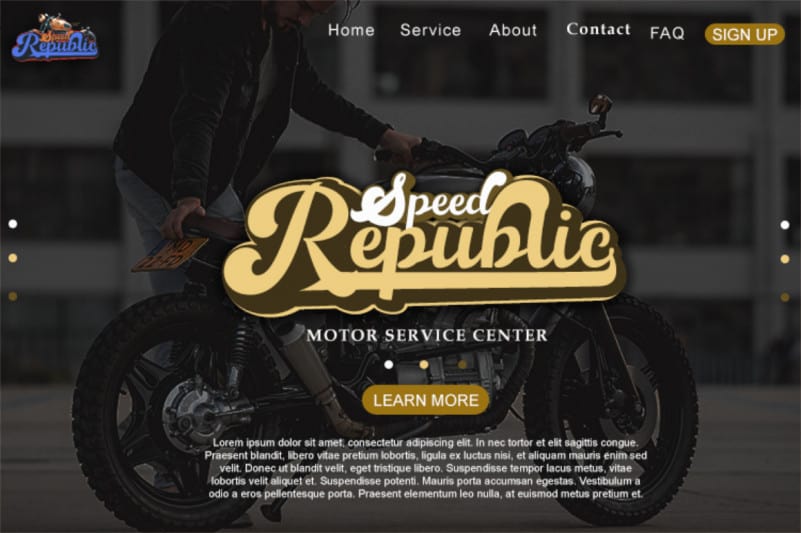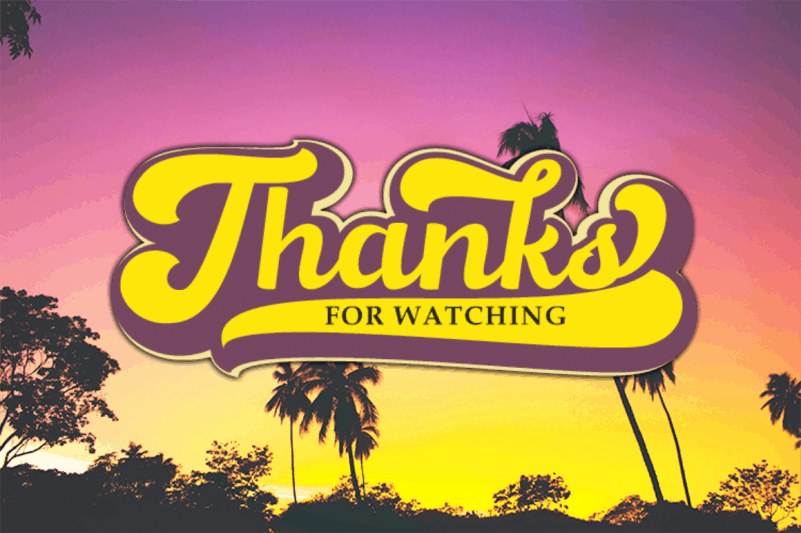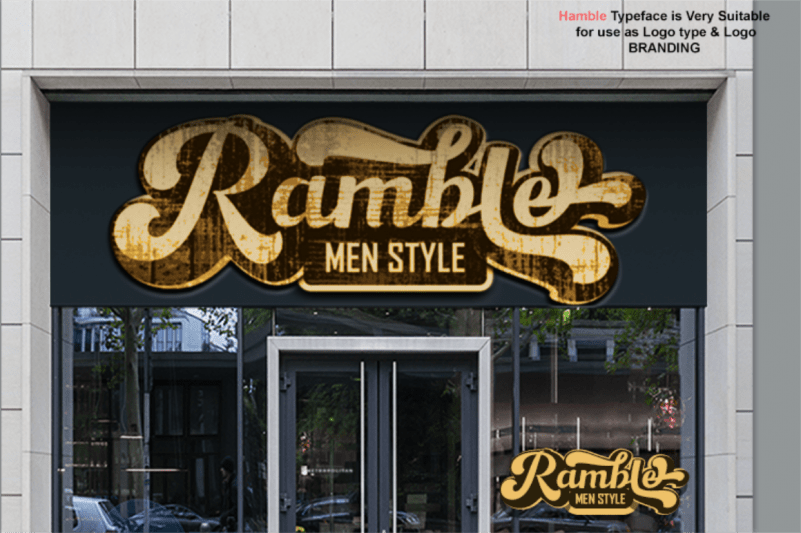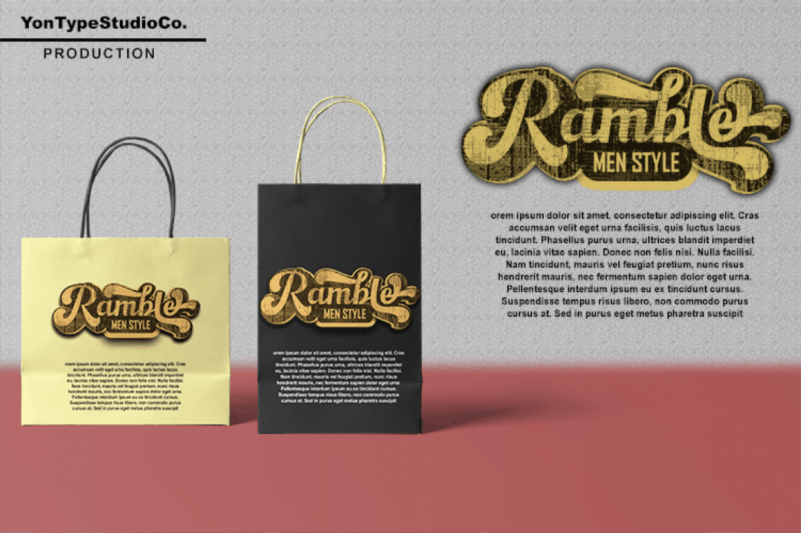
Hamble Bold Script Font
Hamble Bold Script Font was inspired by typographic designs in the 70s, 3 good combination styles for making logos, signboards, simple word signs
complete with hundreds of alternatives with Unicode PUA found in the Hamble Bold Script Font. Alternative characters will help you create bold, strong, artistic and diverse graphic designs for flyers, posters, advertising banners, T-Shirts, book covers, titles or classic typography